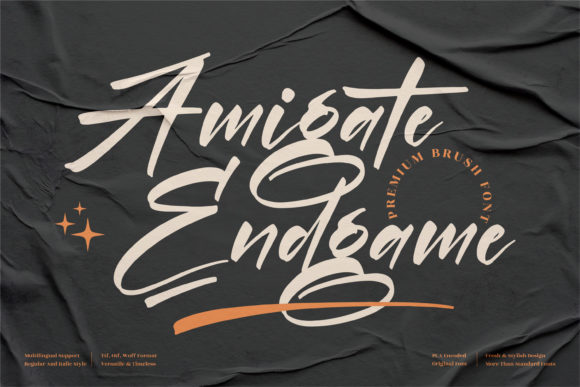
The Amigate Endgame Font: A Game-Changer for Your Designs
Have you ever been in the middle of a design project, and suddenly, you’re stuck on finding the perfect font? I recall a recent experience where I was working on a branding project for a trendy boutique, and I just couldn’t find a font that captured the essence of the brand – until I stumbled upon the Amigate Endgame font. This gorgeous, bold handwritten font has been a total game-changer for my designs, and I’m excited to share my experience with you.
An Honest Review of Amigate Endgame
• ✨ Unique and eye-catching design: Amigate Endgame boasts a distinctive, bold, and confident look that instantly elevates your headlines and logotype projects.
• ✅ Trendy and versatile: This font is perfect for adding a touch of modern character to your designs, making it suitable for a wide range of creative projects.
• 💯 Excellent for branding and advertising: The font’s strong and dynamic personality makes it an excellent choice for branding, advertising, and promotional materials.
While Amigate Endgame is an amazing font, there are a few minor things to consider:
• ⚠️ Legibility at small sizes: As with many bold and decorative fonts, Amigate Endgame may not be the best choice for body text or small font sizes, as it can become difficult to read.
• 🤔 Limited use in formal contexts: Due to its bold and trendy nature, Amigate Endgame might not be suitable for formal or traditional designs, such as academic papers or corporate reports.
The Designer Inspiration Behind Amigate Endgame
While the actual designer behind Amigate Endgame remains a mystery, it’s clear that they drew inspiration from the world of modern calligraphy and hand-lettering. The font’s bold and confident personality is reminiscent of street art and urban typography, making it a perfect fit for creative projects that demand a touch of edginess.
Q: What type of projects is Amigate Endgame best suited for?
A: Amigate Endgame is perfect for branding, advertising, and promotional materials, as well as creative projects that require a bold and trendy touch.
Q: Is Amigate Endgame a difficult font to read?
A: As a bold and decorative font, Amigate Endgame may not be the best choice for body text or small font sizes, but it’s perfect for headlines and titles.